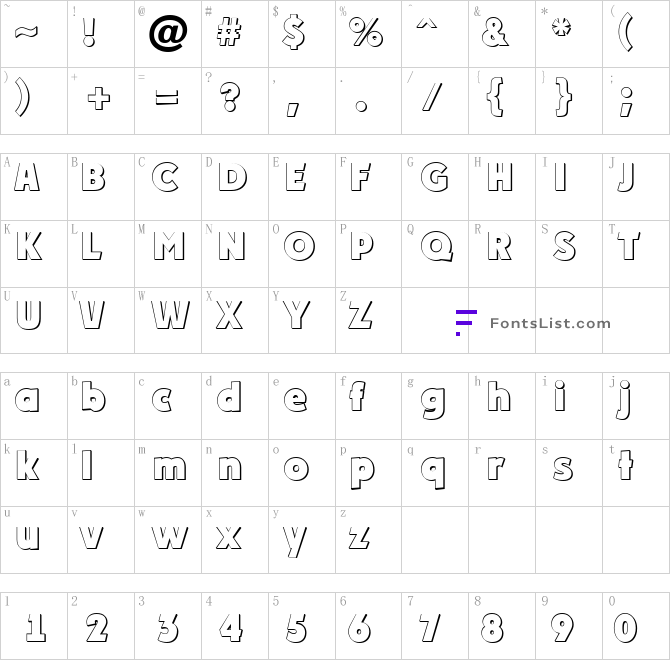
- Font Name:a_Plakat3Dxtr
- Subfamily:ExtraBold
- Subfamily:ArsenalCompany: a_Plakat3Dextrusion: 1998
- Full Name:a_Plakat3Dxtr ExtraBold
- Weight:800
a_Plakat3Dxtr-ExtraBold.ttf is a very beautiful artistic font, a_Plakat3Dxtr-ExtraBold.ttf is widely used in the design and printing of various books and pictures,a_Plakat3Dxtr-ExtraBold.ttf has a strong visual impact,a_Plakat3Dxtr-ExtraBold.ttf is a commonly used font in newspapers, magazines and books, and is used in posters, e-commerce Poster design, store design, logo design, font design and other fields.a_Plakat3Dxtr-ExtraBold.